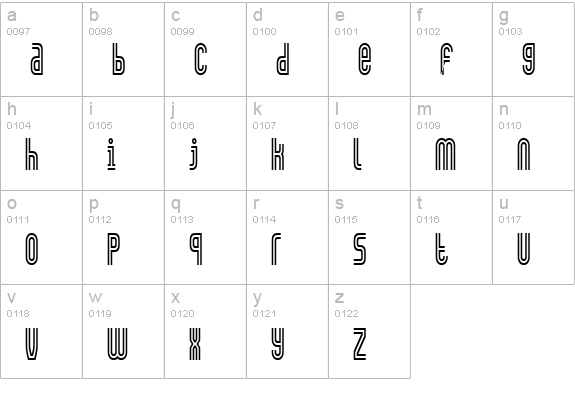
GALLEDIS Cn Font Details
GALLEDIS Cn font is a stunning display typeface that exudes elegance and sophistication. Its unique design elements and delicate curves make it perfect for adding a touch of refinement to any project. With its narrow and condensed letterforms, GALLEDIS Cn font is particularly well-suited for headlines, titles, and logos. What makes GALLEDIS Cn font even more appealing is that it is completely free to download. No need to worry about breaking the bank or sacrificing quality, as this font is freely available at FontsMarket.com. Now, designers and creatives can access this exceptional typeface without any restrictions or limitations. Whether you are working on a branding project, editorial design, or any other creative endeavor, GALLEDIS Cn font is sure to elevate your work to new heights. Its sleek and sophisticated appearance, combined with its availability as a free download, makes it a valuable asset for any designer's toolkit. Don't miss out on the opportunity to enhance your designs with the timeless beauty of GALLEDIS Cn font. Download it for free today at FontsMarket.com and experience the seamless integration of elegance and creativity into your projects.